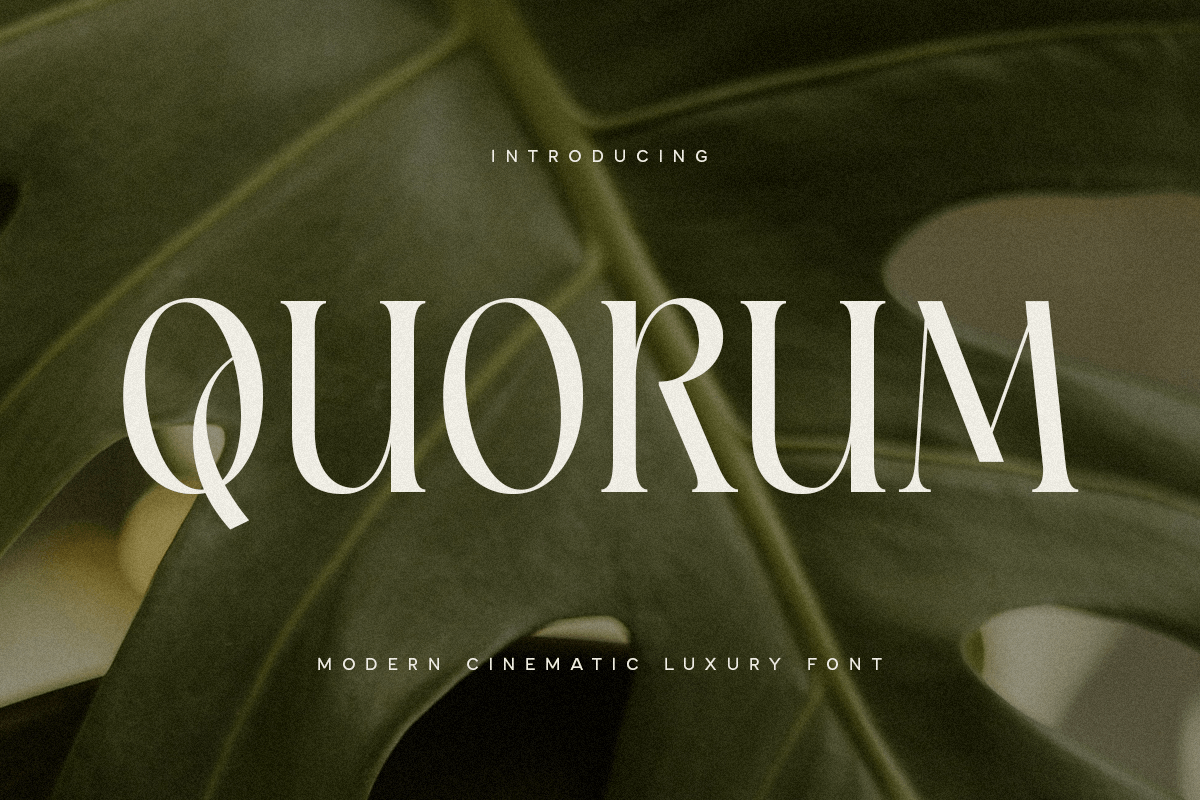
Quorum
-Modern Cinematic Luxury Font
Quorum
Introducing Quorum, the epitome of luxury and cinematic elegance in a serif font. Perfectly crafted for sophisticated and high-end designs, Quorum brings a touch of class and refinement to any project.
Elevate your designs with Quorum, the luxury serif font that exudes sophistication and style. Whether for high-end branding, cinematic projects, or elegant typography, Quorum adds a timeless and refined touch to your work. Make a statement with Quorum and let your designs shine with unparalleled elegance.